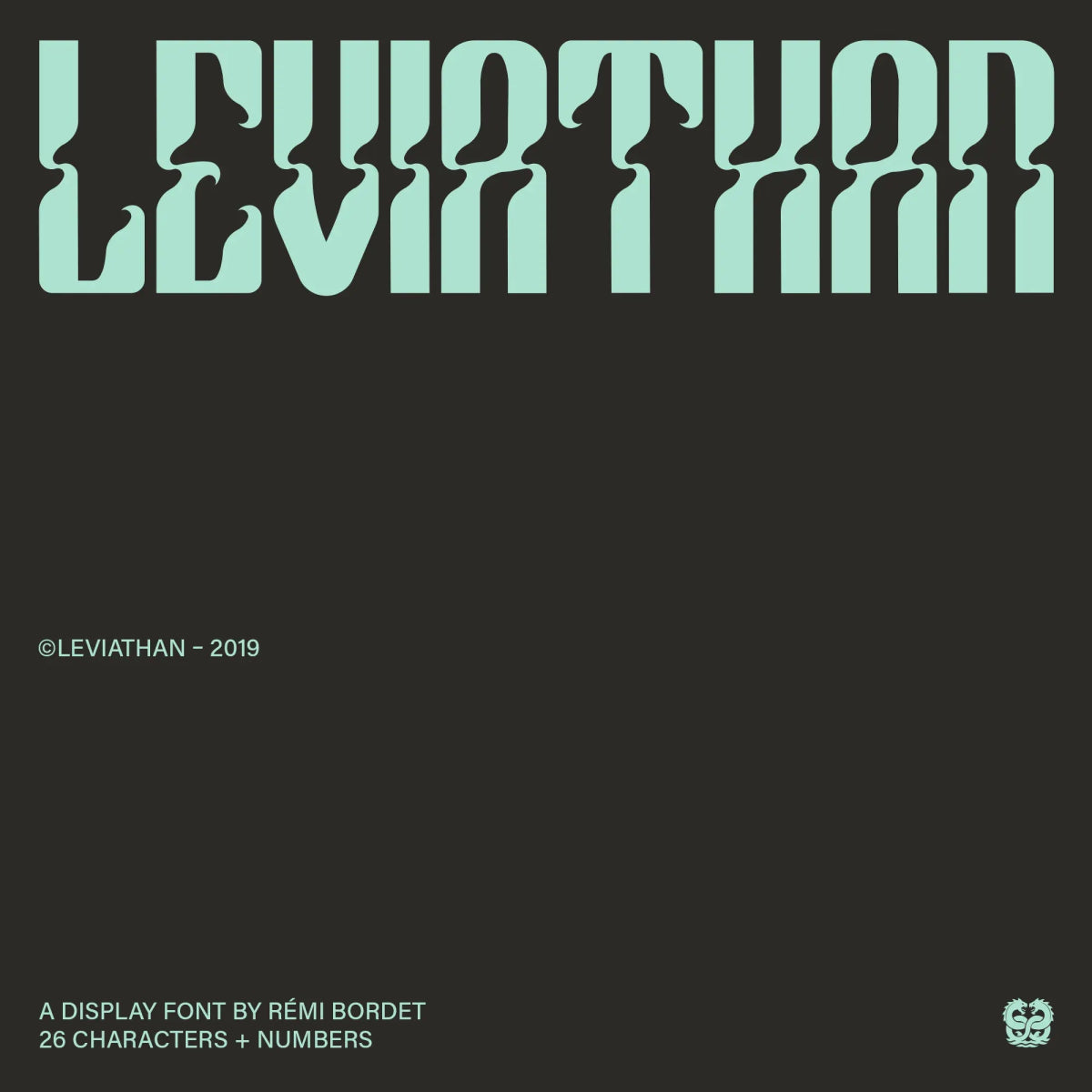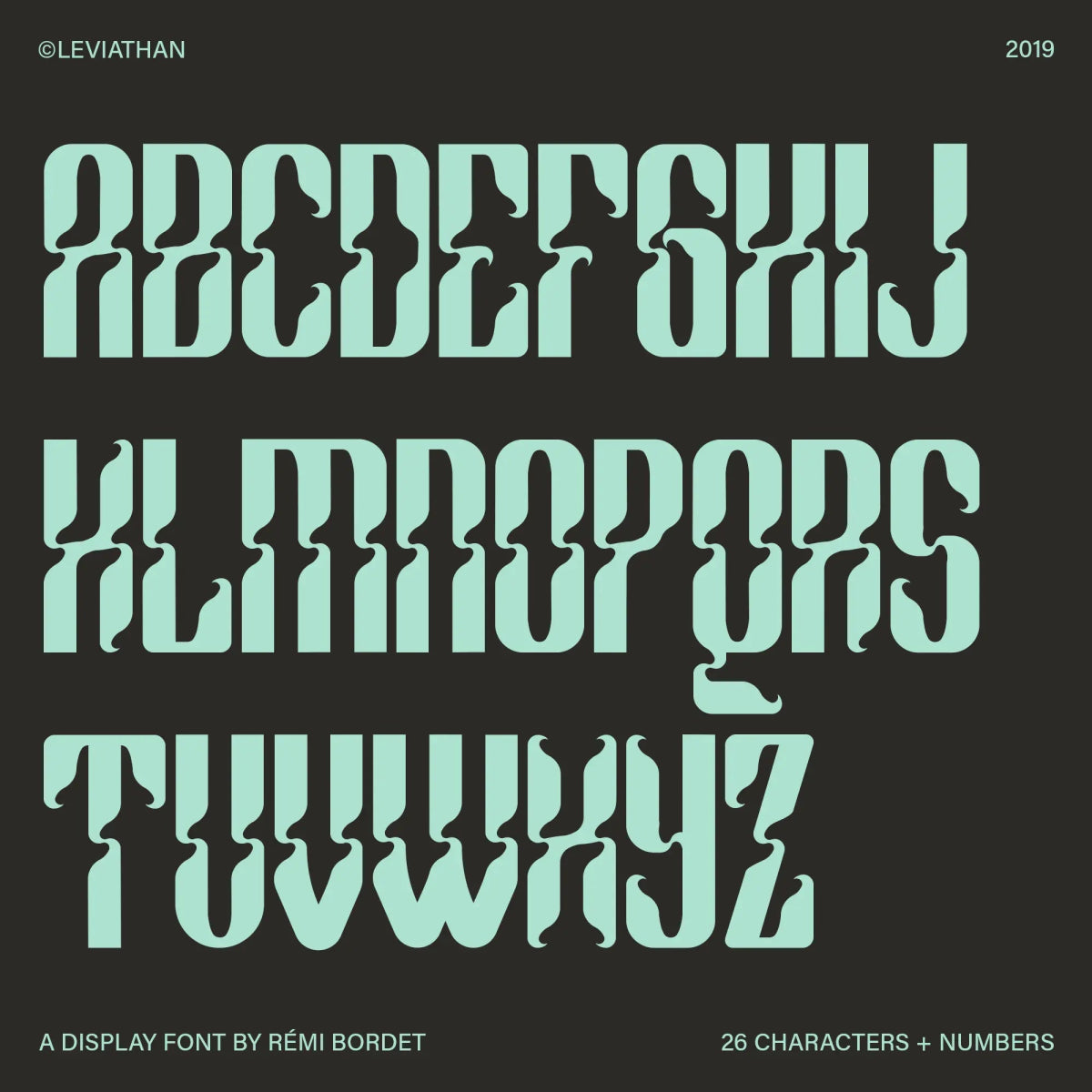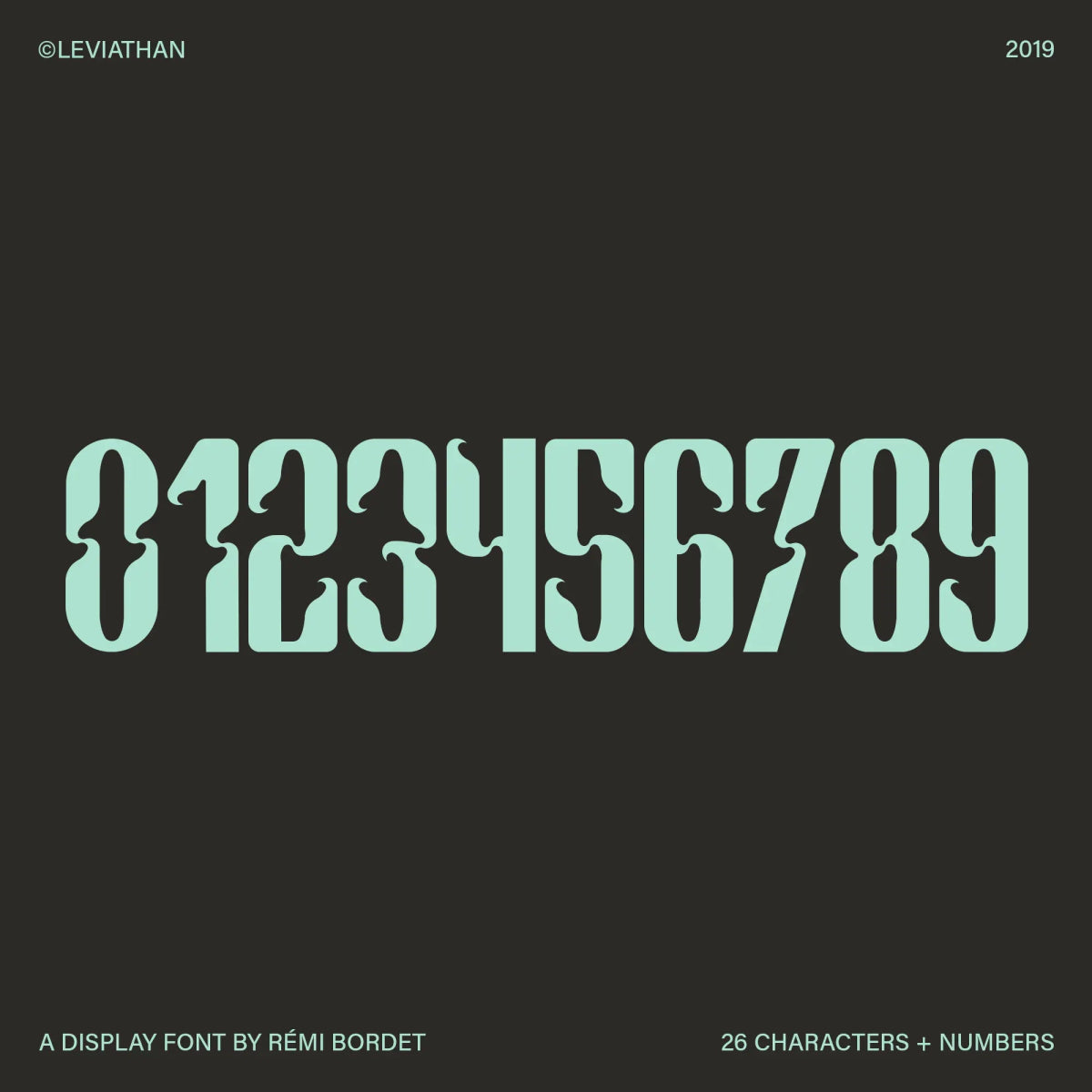
Leviathan Display Font
by Rémi Bordet
Leviathan is a fierce display font that merges gothic elegance with futuristic edge. Featuring spiked serifs, monolithic forms, and sharp symmetry, this typeface is perfect for heavy music branding, dark fashion, game titles, and sci-fi horror visuals.
Font Features
• Full uppercase A-Z alphabet
• Full set of numbers 0-9
Rémi Bordet
Rémi Bordet is a french graphic and type designer and artist who creates bold, minimalist posters combining impactful imagery and typography. His work highlights contradictions, both aesthetically and symbolically speaking, through stylistic visual metaphors that blend brutalist aesthetics with emotional depth.